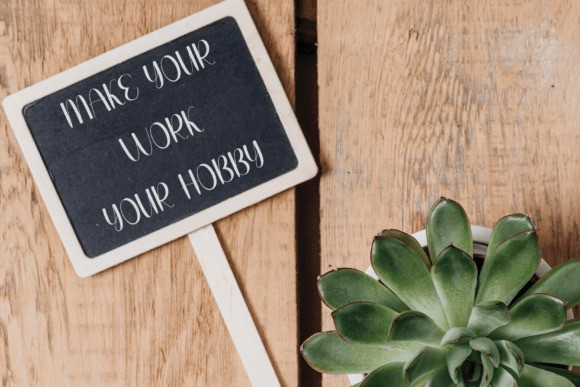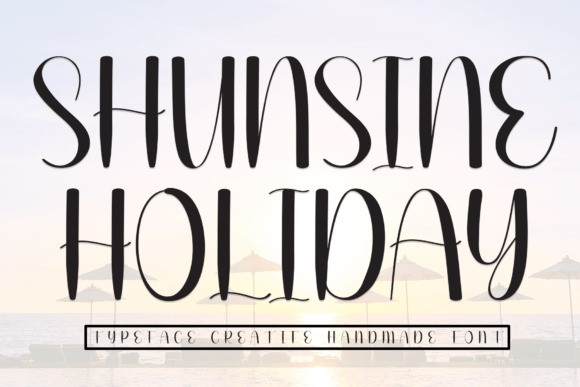
Sunshine Holiday Font
Sunshine Holiday Font is a sweet and friendly handwritten font. Fresh and neat, this font is ideal for writing wedding invitations, cards, or any other design that might need a fun touch!